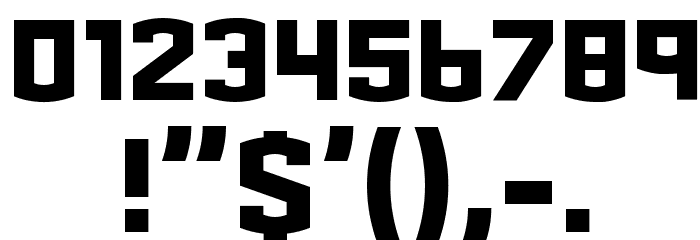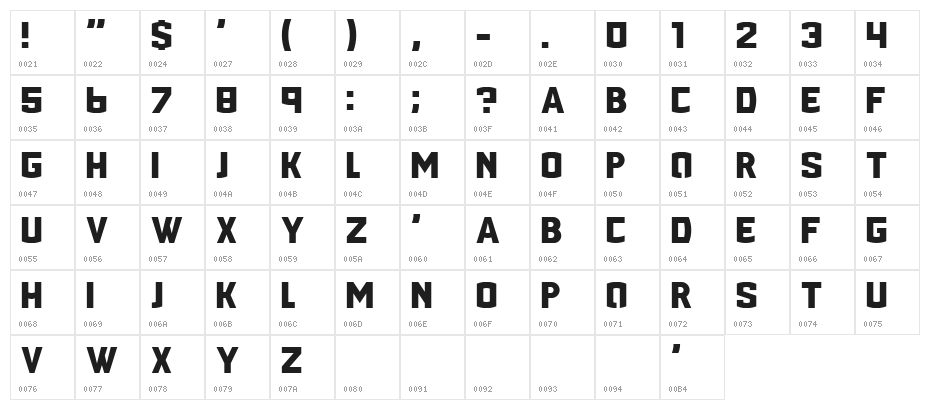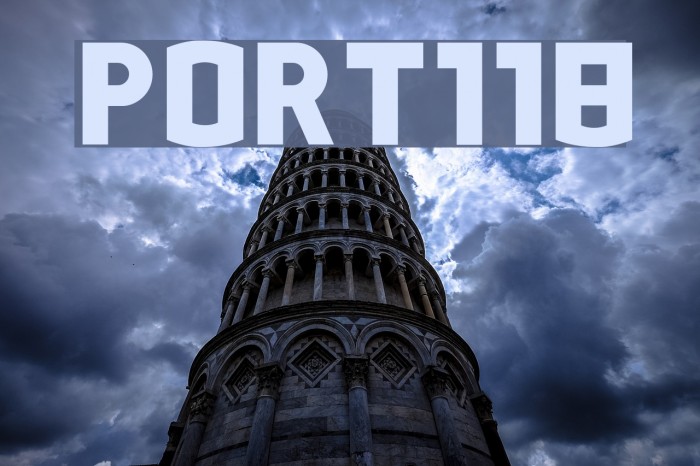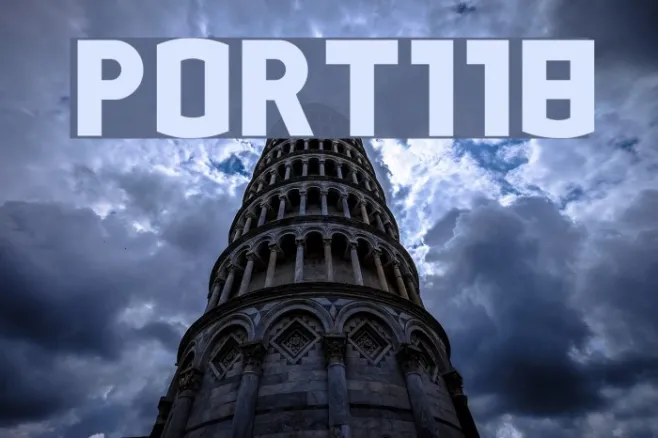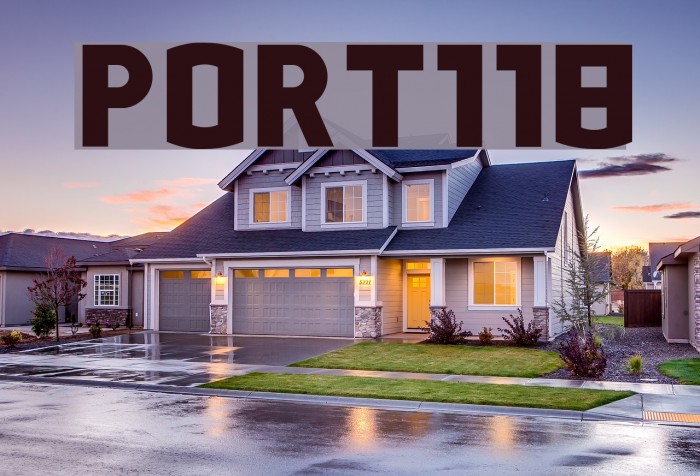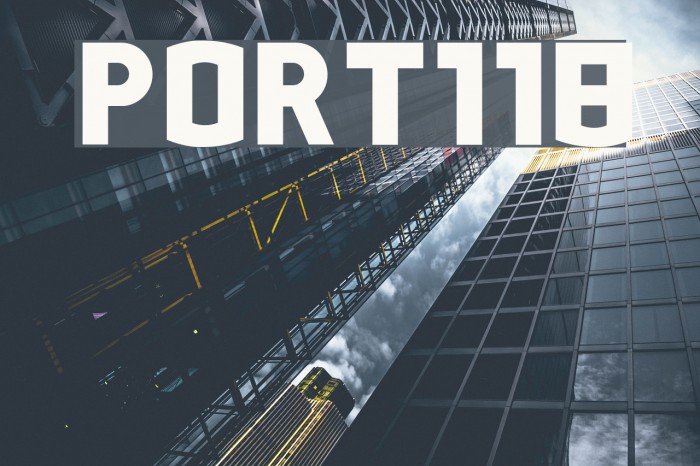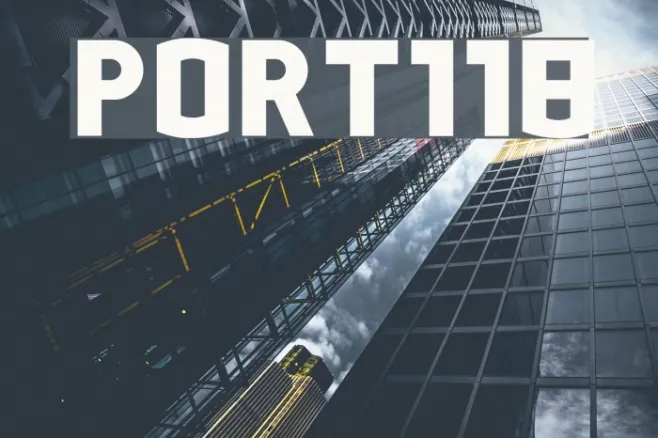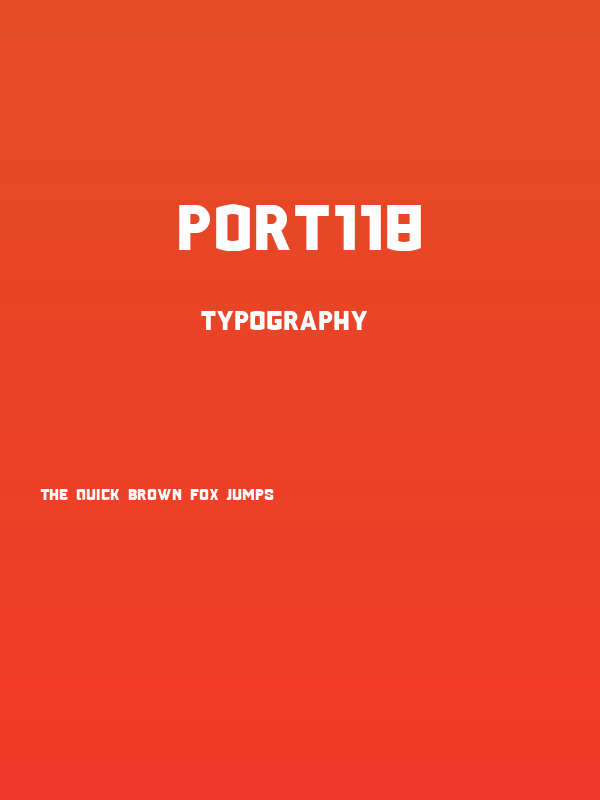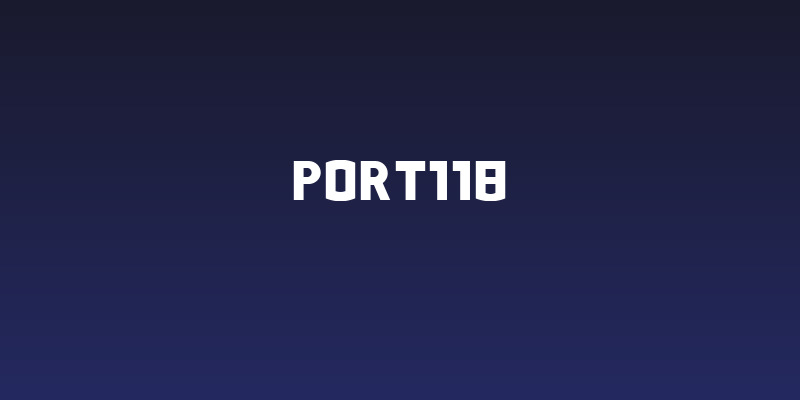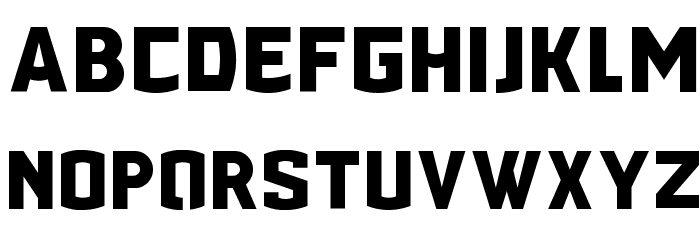
PORT118 Font
PORT118 Description
This font features a bold and geometric style with strong, angular lines and a modern aesthetic. The uppercase and lowercase letters maintain a consistent width, creating a uniform appearance. The numbers and special characters are designed to match the boldness of the alphabet, ensuring a cohesive look across all characters. The font's design is characterized by its sharp edges and clean lines, making it suitable for attention-grabbing headlines and impactful designs. Its bold nature and geometric form lend it a contemporary feel, ideal for modern branding and advertising projects.
| Proposed Projects | Ideal for branding, advertising, headlines, and modern design projects. |